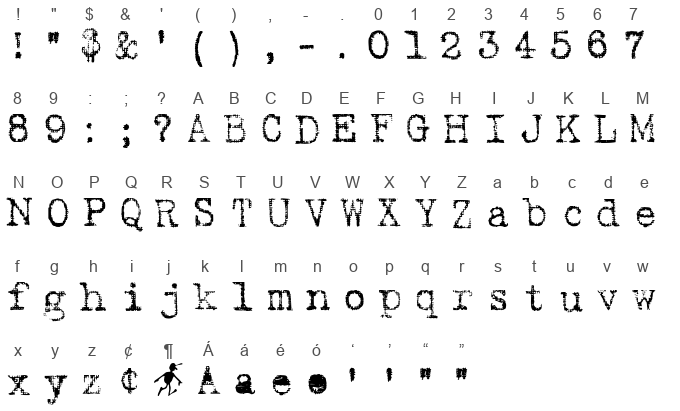
Fucked Olympia J
WORLD-COPYRIGHTS: J.B.Thyssen & H. Zimmerman ©1991 Fucked up Olympia typewriter-scan. JTHZ:Fucked Olympia J. Now closed a, e, o added (alterns) Feb 06 1991 - JT. Fucked-OlympiaJ. jthz